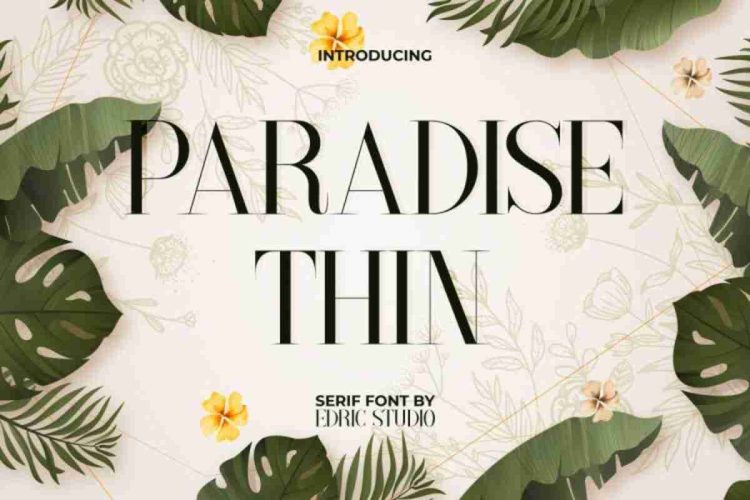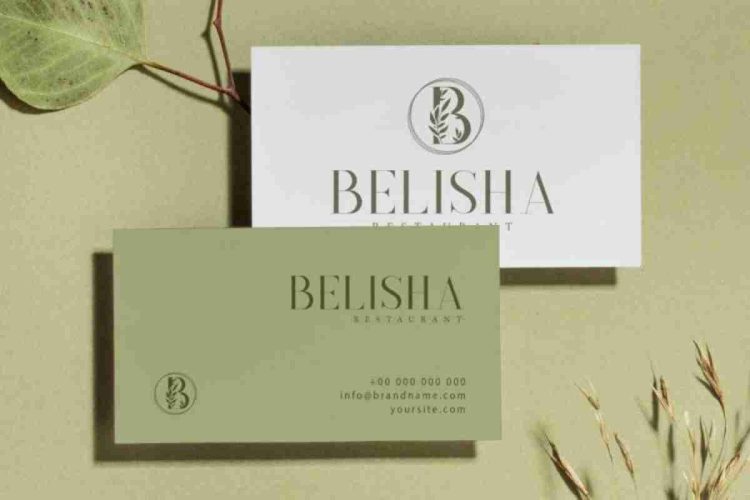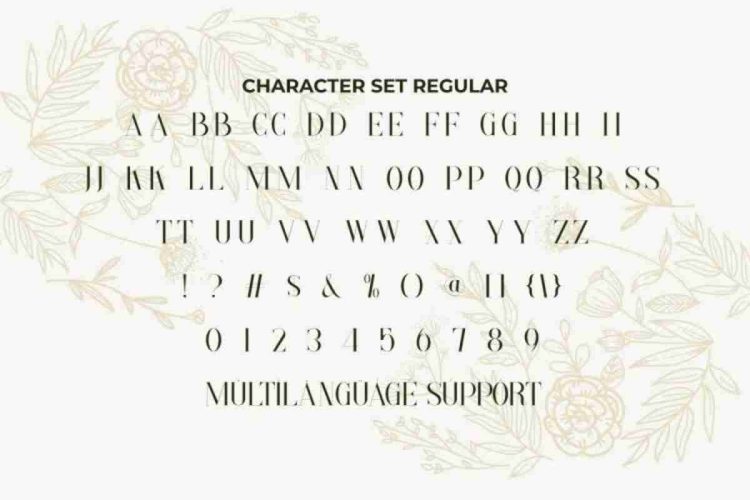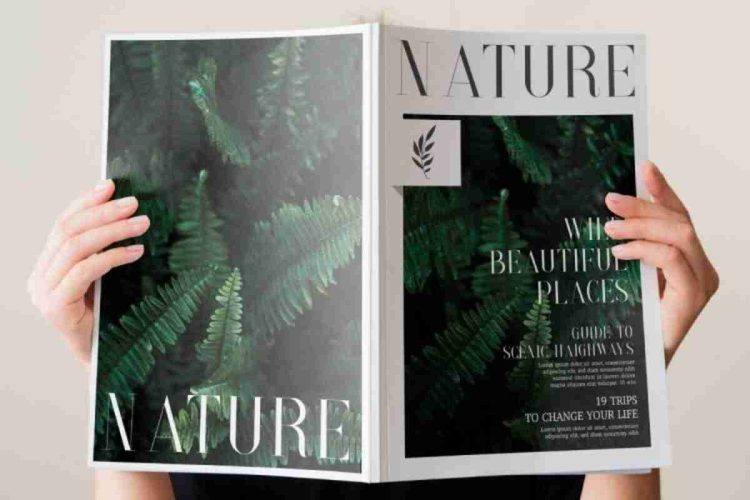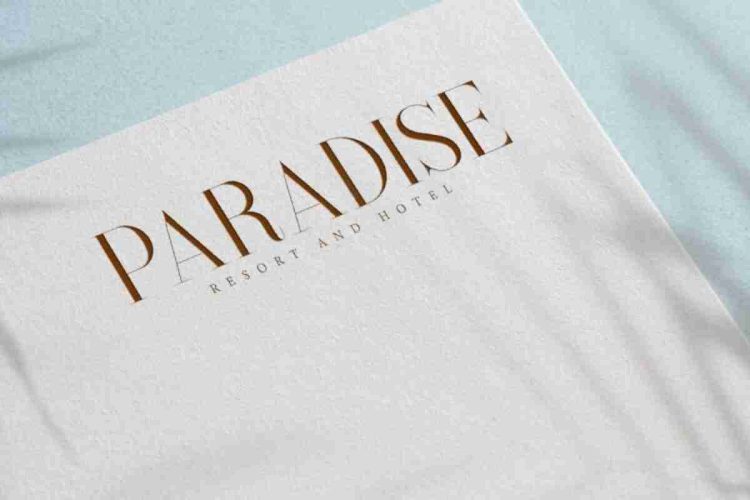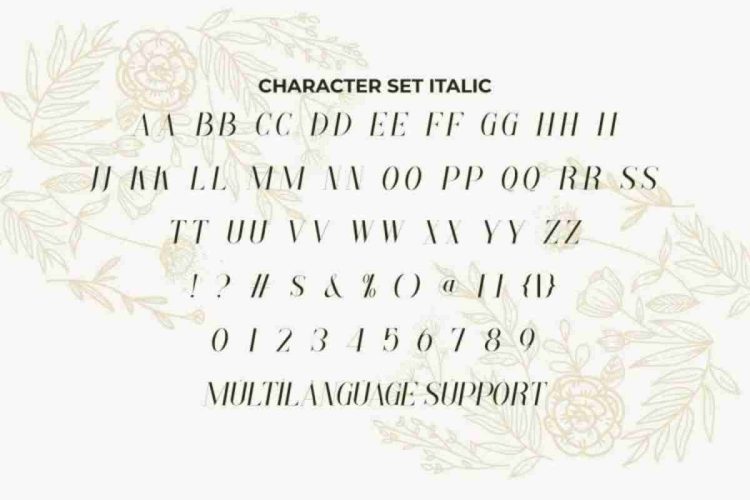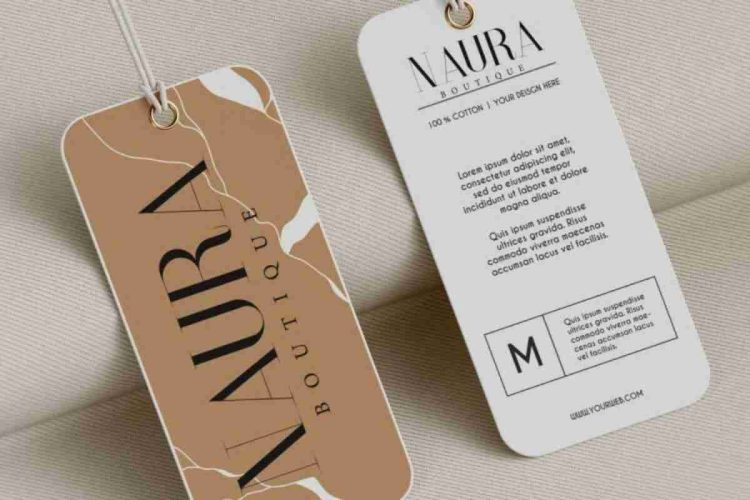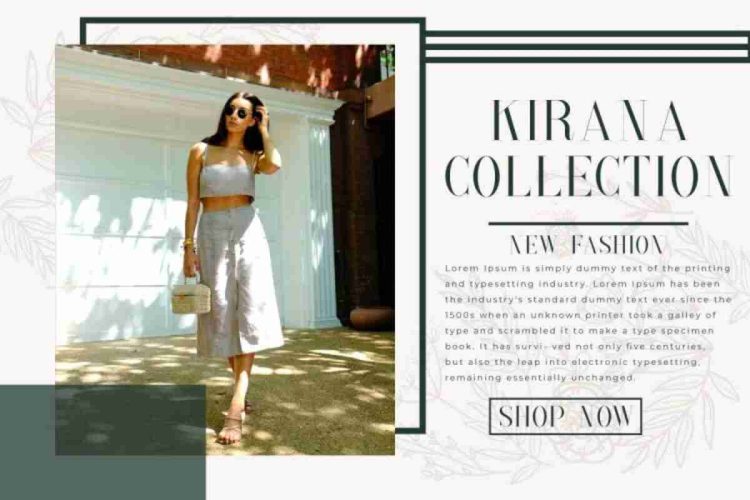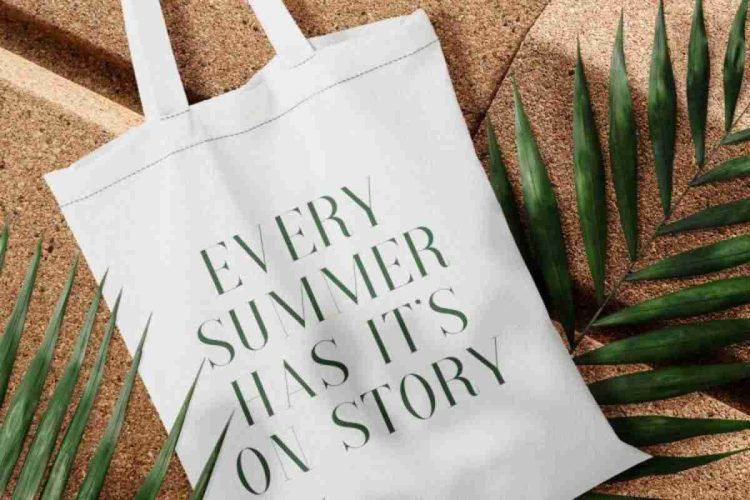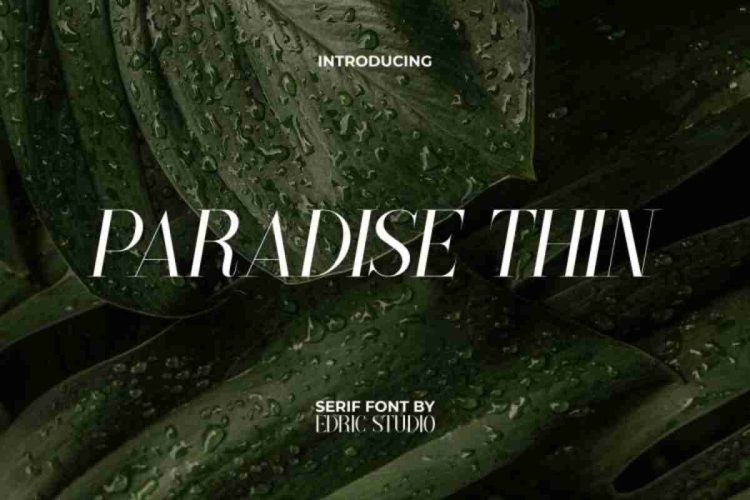
Paradise Thin Font is a modern serif font with sleek style, created by EdricStudio. This typeface has a mixed amazing bold and thin shape that makes it different and feels modern which would be great for an industry, like boutique, craft, fashion, homeware, hotel & resort, journalist, publishing, restaurant, writer, and more!
Paradise Thin Sans Serif Font consists of two styles: Regular and Italic which comes with a full set of Uppercase and Lowercase Basic Characters, Number, large range of Punctuation and Symbol. It has a stunning characters set, perfectly managed with well spaced and kerning.